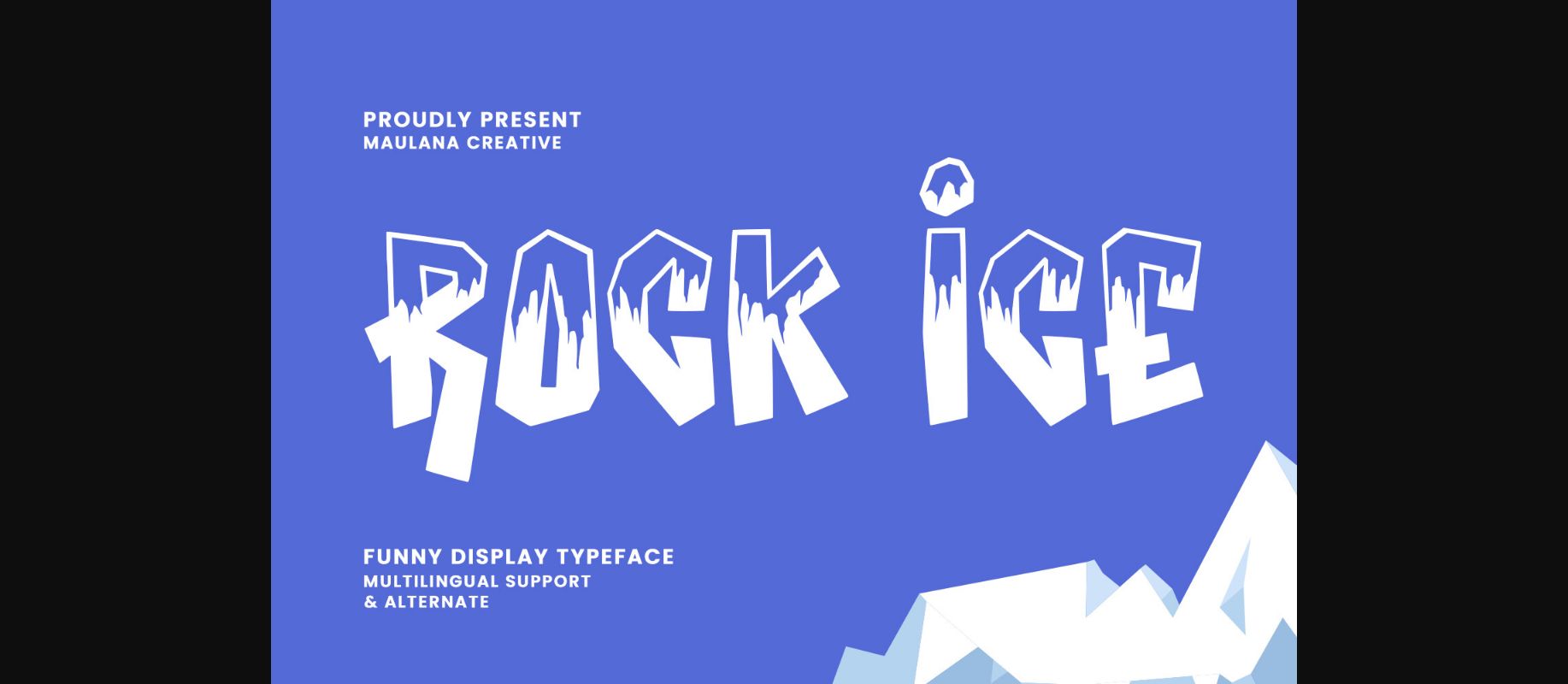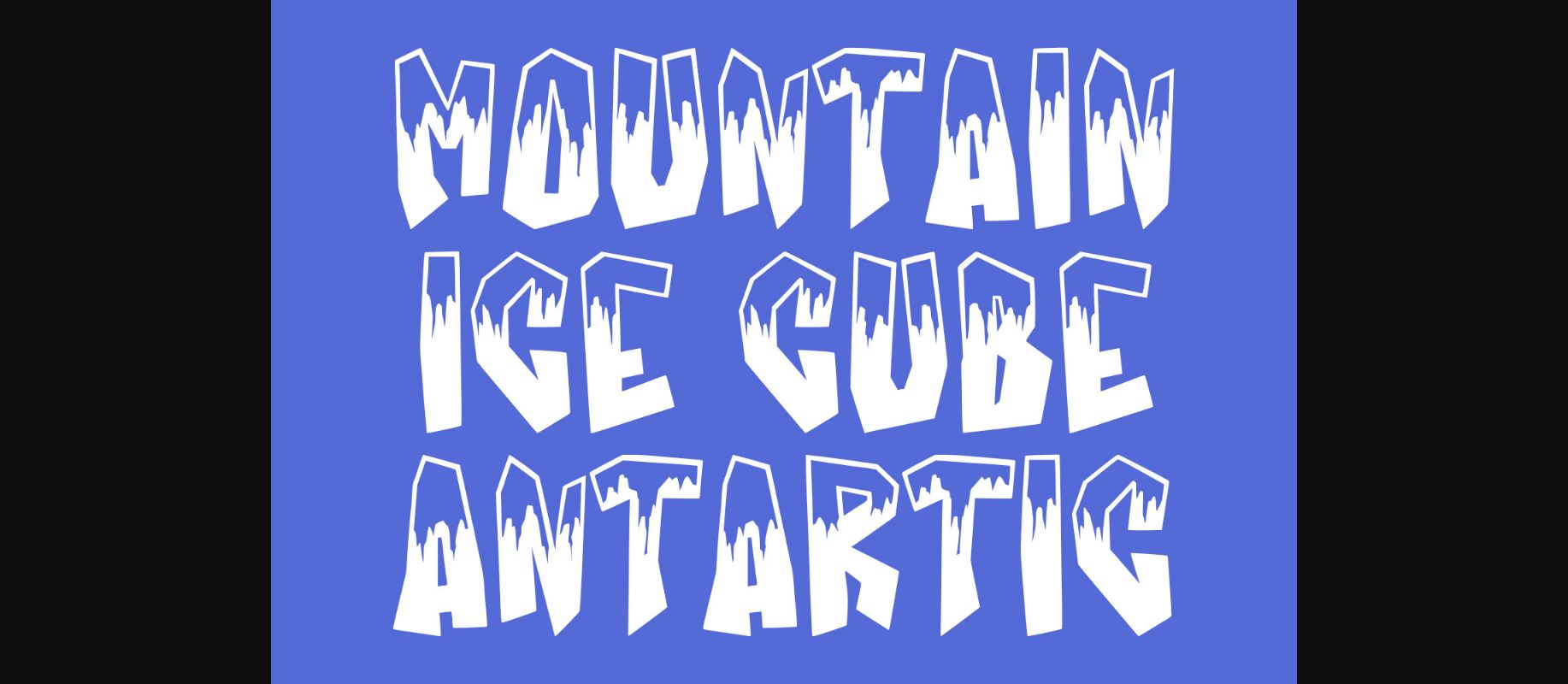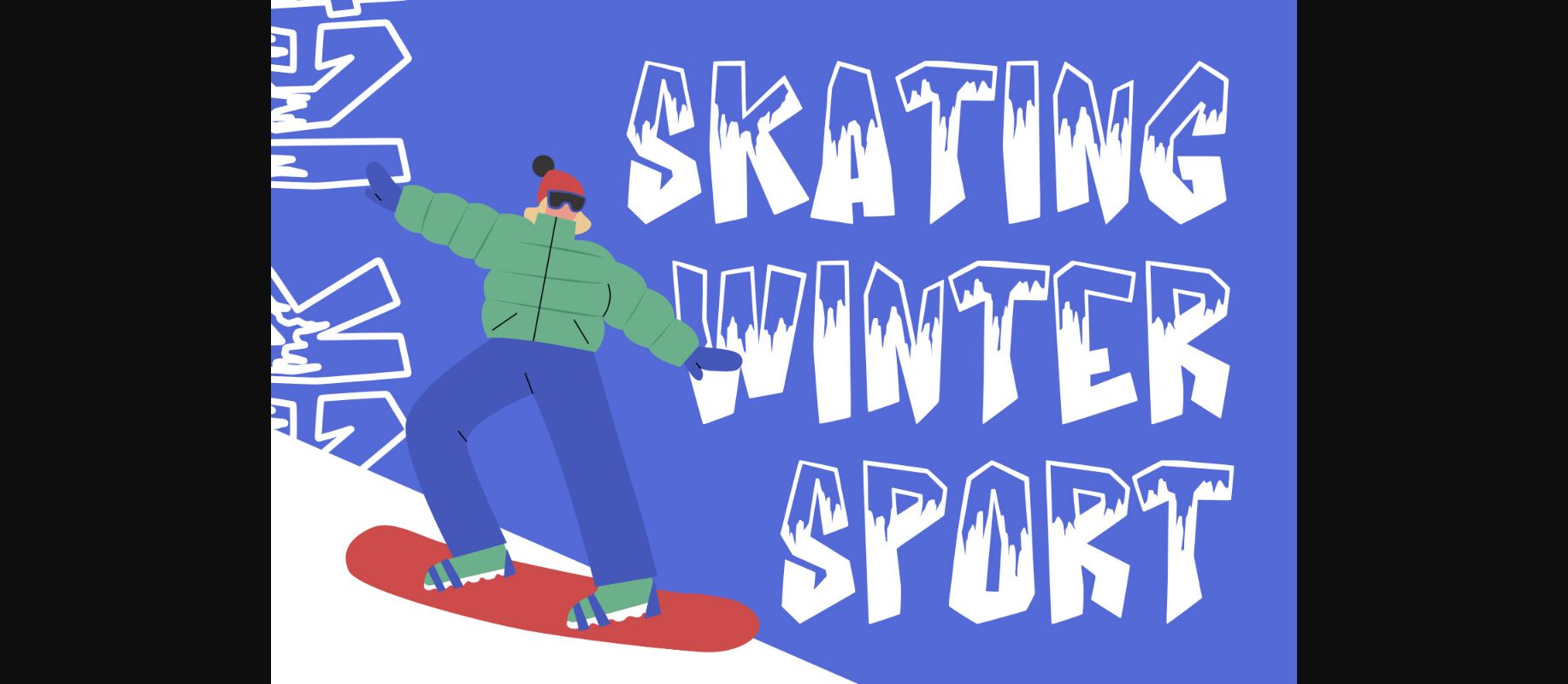
About Rock Ice Font
Meet “Rock Ice,” the playful decorative font that brings a touch of humor and frosty charm to your designs. Featuring whimsical letterforms adorned with miniature ice mountains, Rock Ice adds a lighthearted and creative flair to your projects. Whether you’re working on invitations, greeting cards, or any design that could use a dash of fun, Rock Ice is the perfect choice. Let your text come alive with this delightful font, where every letter is a playful expedition through icy peaks of creativity.